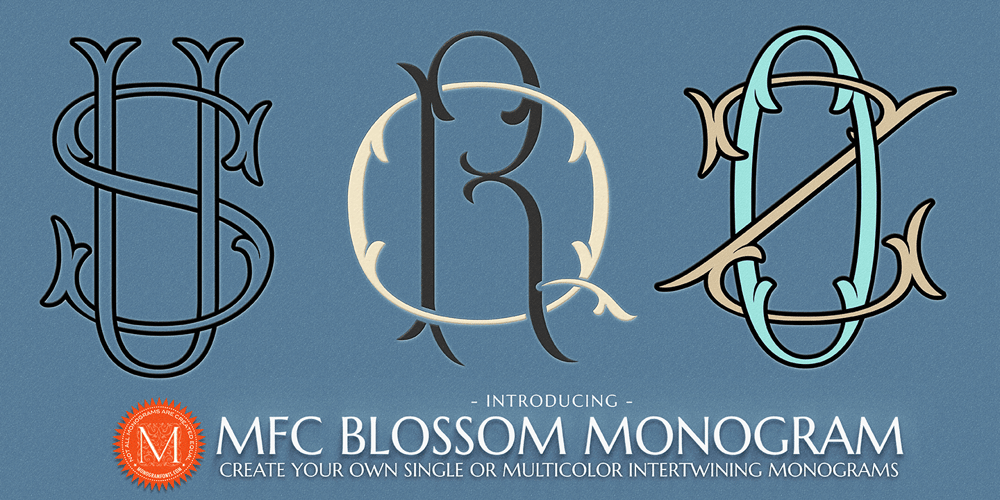
MFC Blossom Monogram Font Family was designed by Jim Lyles, Brian J. Bonislawsky and published by Monogram Fonts Co.. MFC Blossom Monogram contains 8 styles and family package options. The inspiration source for this intertwining MFC Blossom Monogram is our MFC Budding Monogram. What began as 26 referenced outline/shadowed letters became an over 800 character font in order to create its unique interwoven monogram effect! Expanding on the theme even more, MFC Blossom Monogram also includes a series of Chromatic Layering fonts to create even more customization options. MFC Blossom Monogram can create one, two, or three (separated) letter monograms as well as a unique two letter intertwined monogram style – made by simply typing a lowercase immediately followed by a Capital (using OpenType Ligatures). Classic decorative letterforms combine to make elegant monograms, and you can also choose to type in all capitals or all lowercase for simple title and headlines as well. (Note that due to the manner in which combination monograms are formed, some letters like the “I” will change to script-like forms to avoid being hidden in overlaps). MFC Blossom Monogram is the original Outline/Shadowed style. MFC Blossom Monogram Solid is a version with the original outline filled in. MFC Blossom Monogram One is the Capital letterforms only in both standard and ligature glyphs. MFC Blossom Monogram Two is the Lowercase letterforms only in both standard and ligature glyphs. MFC Blossom Monogram Stencil contains the inner fill of the original Outline/Shadowed style, and while the standard Capitals & Lowercase do not appear as stencil in style, the ligatures are. You’ll also find the same floral decorative elements from MFC Budding Monogram setup in each of the chromatic styles for MFC Blossom Monogram, adding more personalization options. See Guidebook for explanation of Chromatic Layering possibilities. A PDF guidebook for MFC Blossom Monogram is available under the Gallery tab.